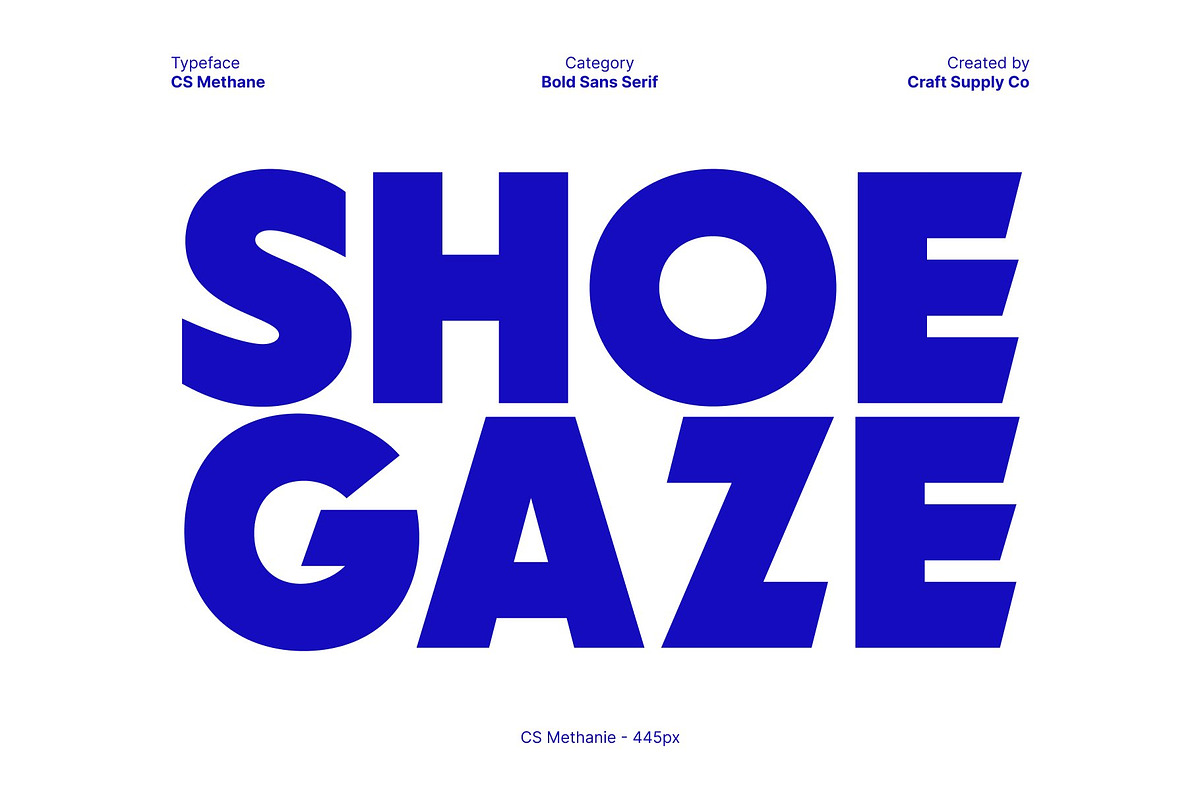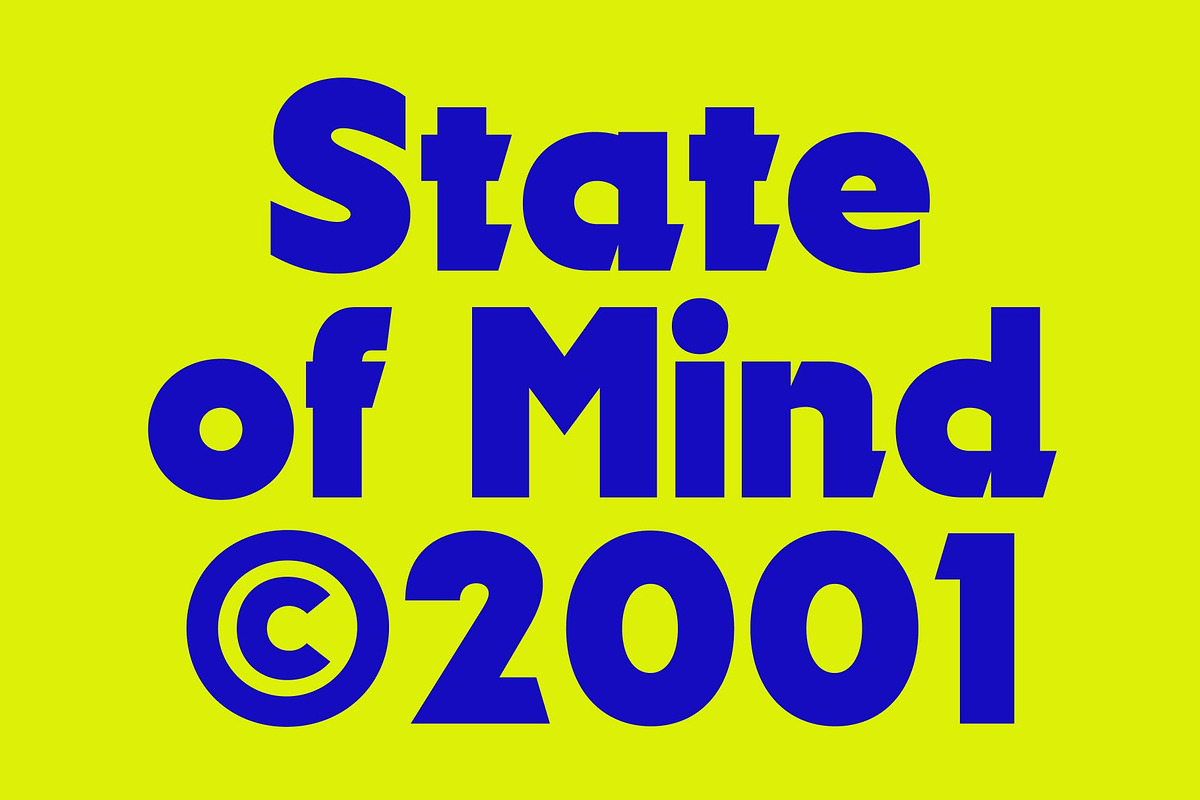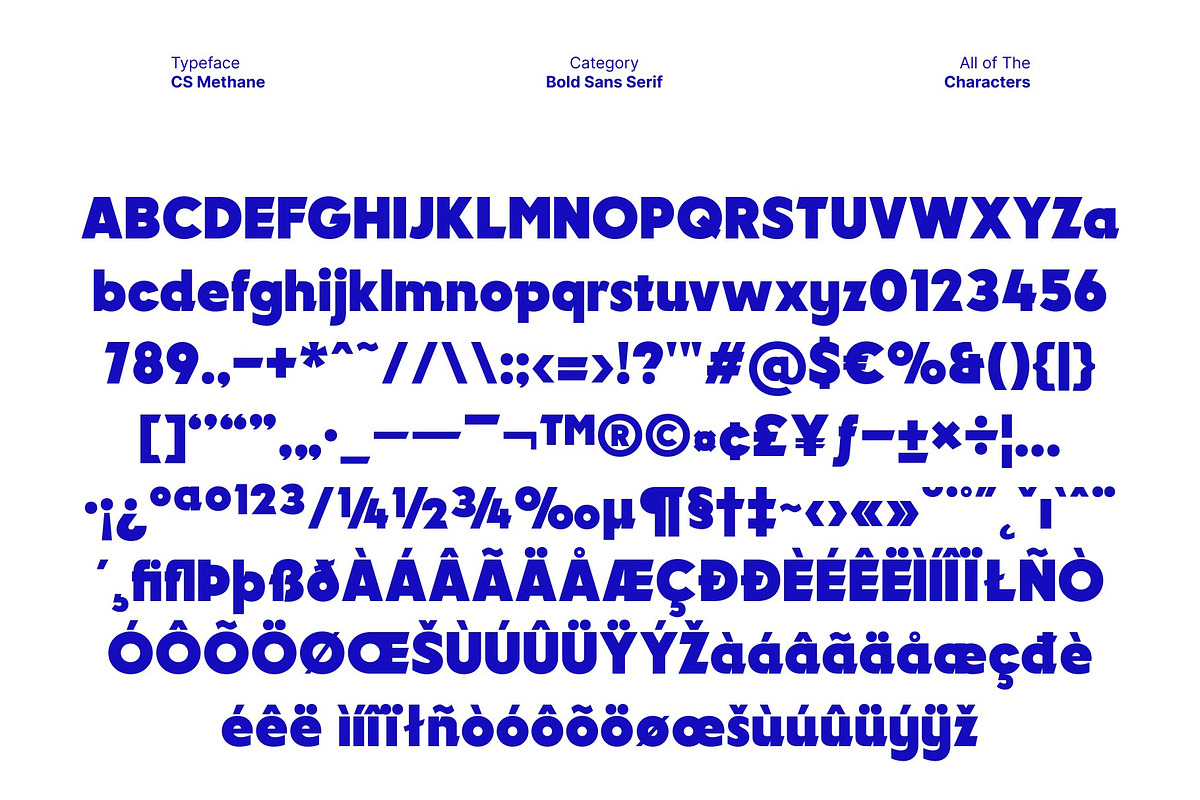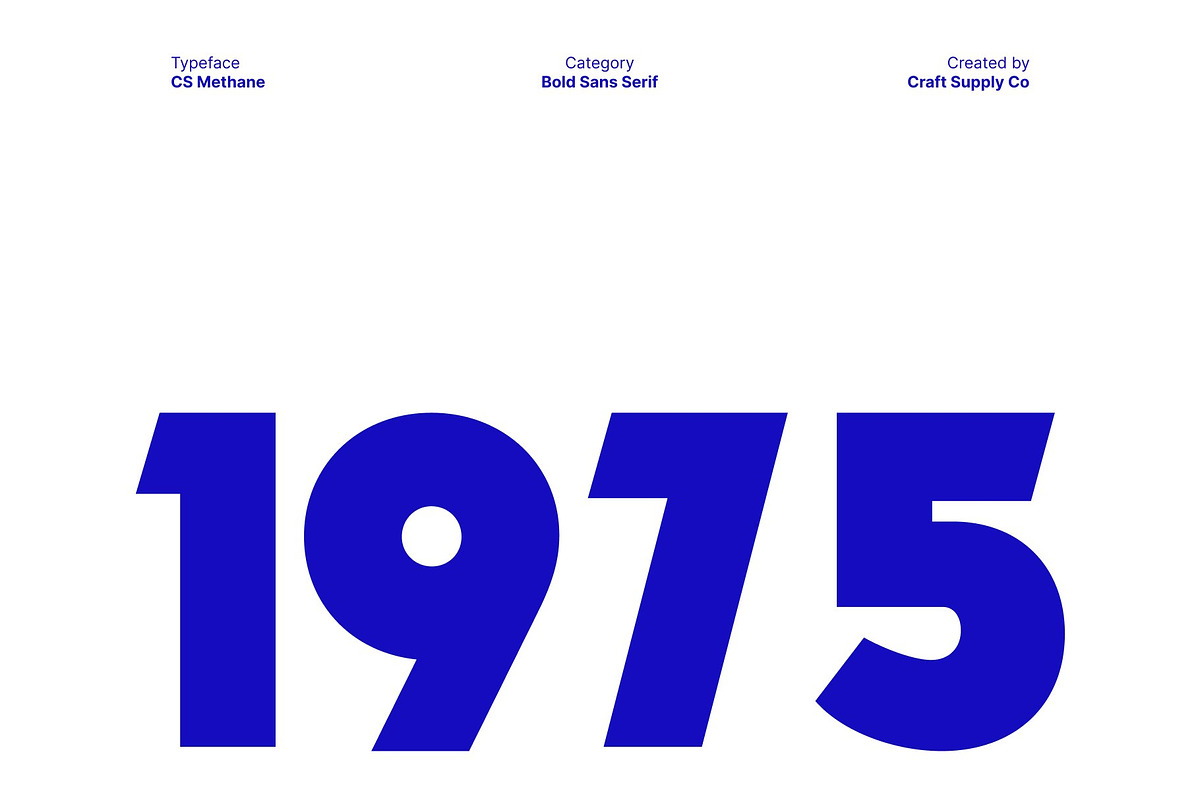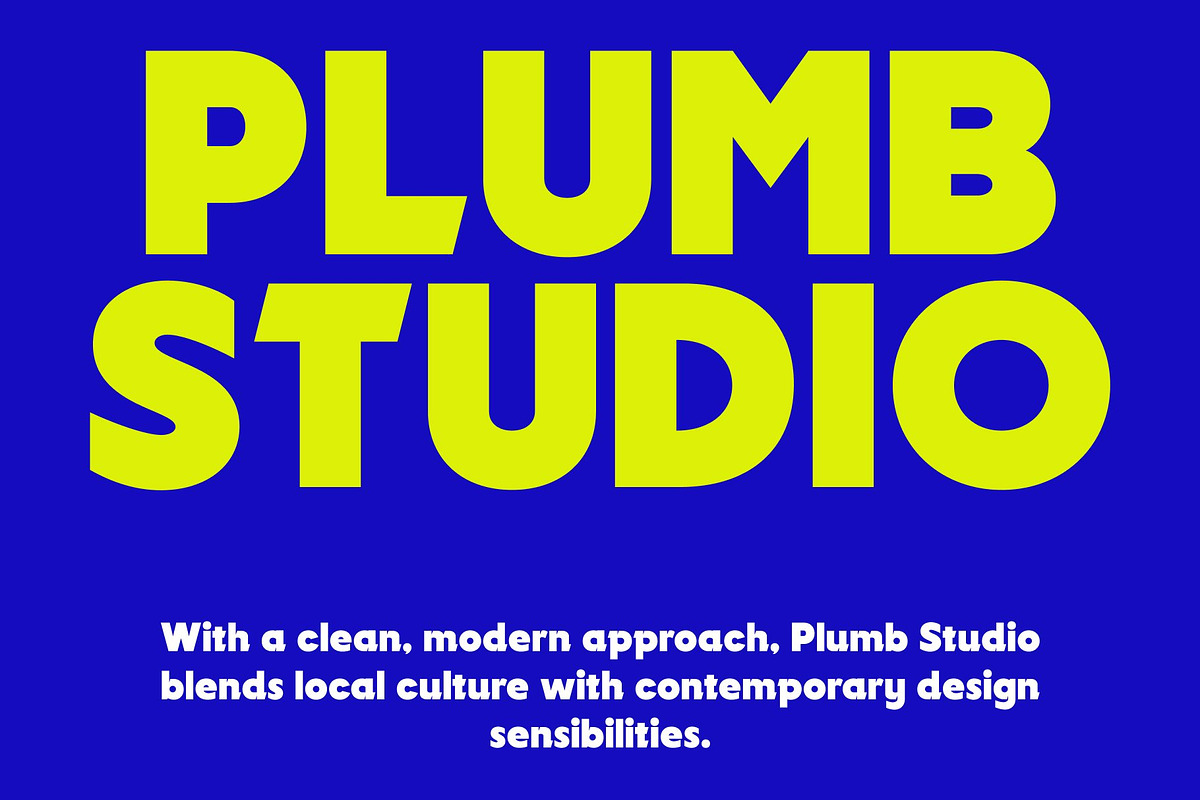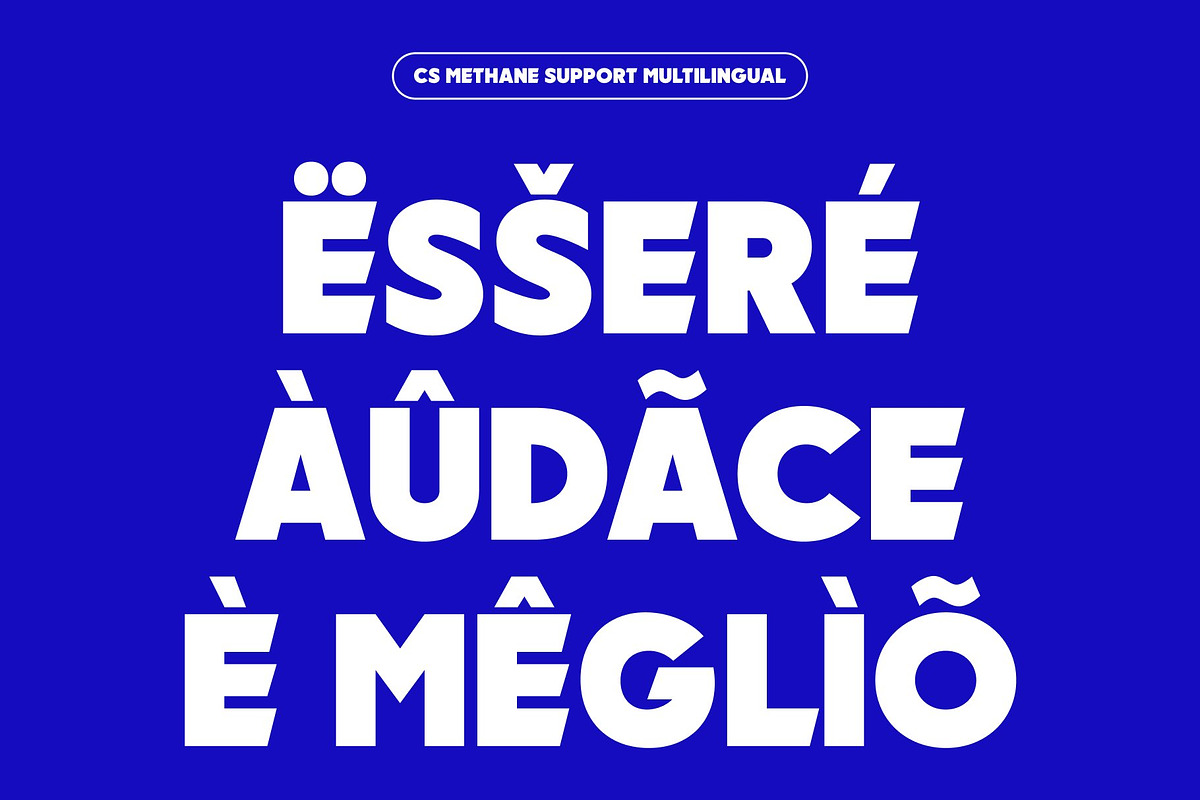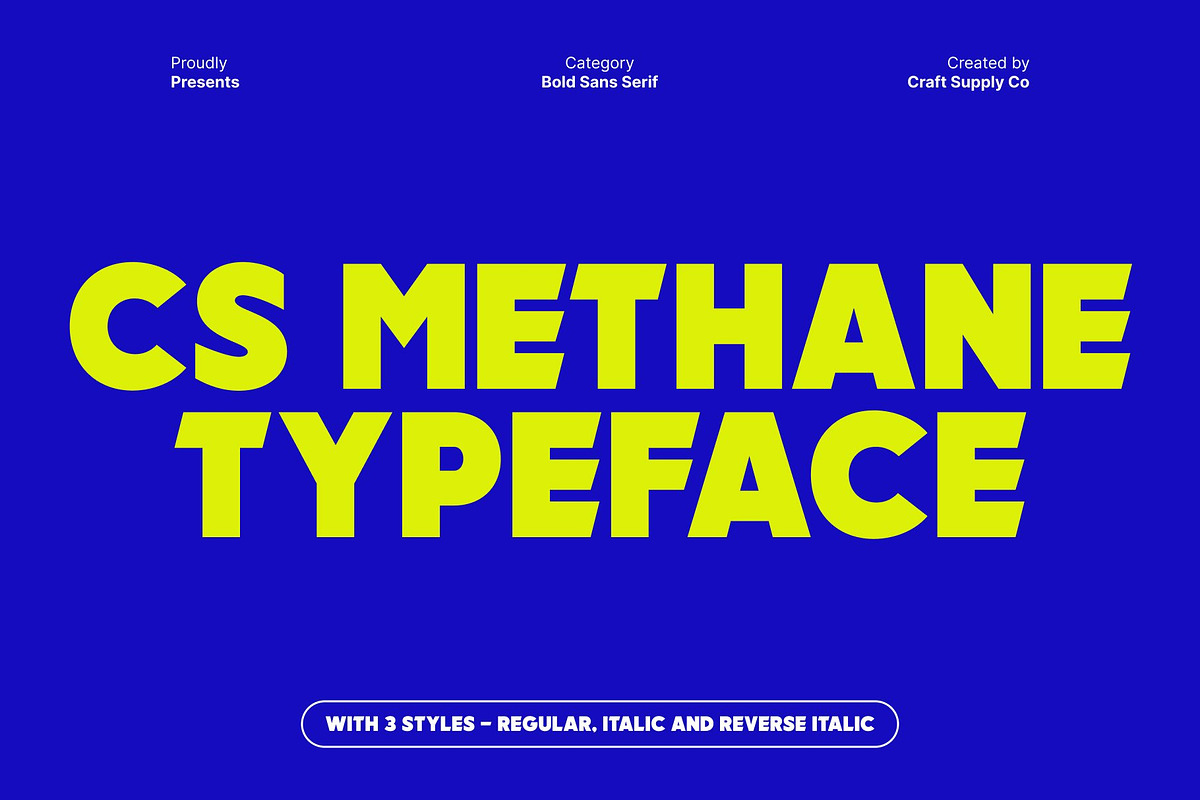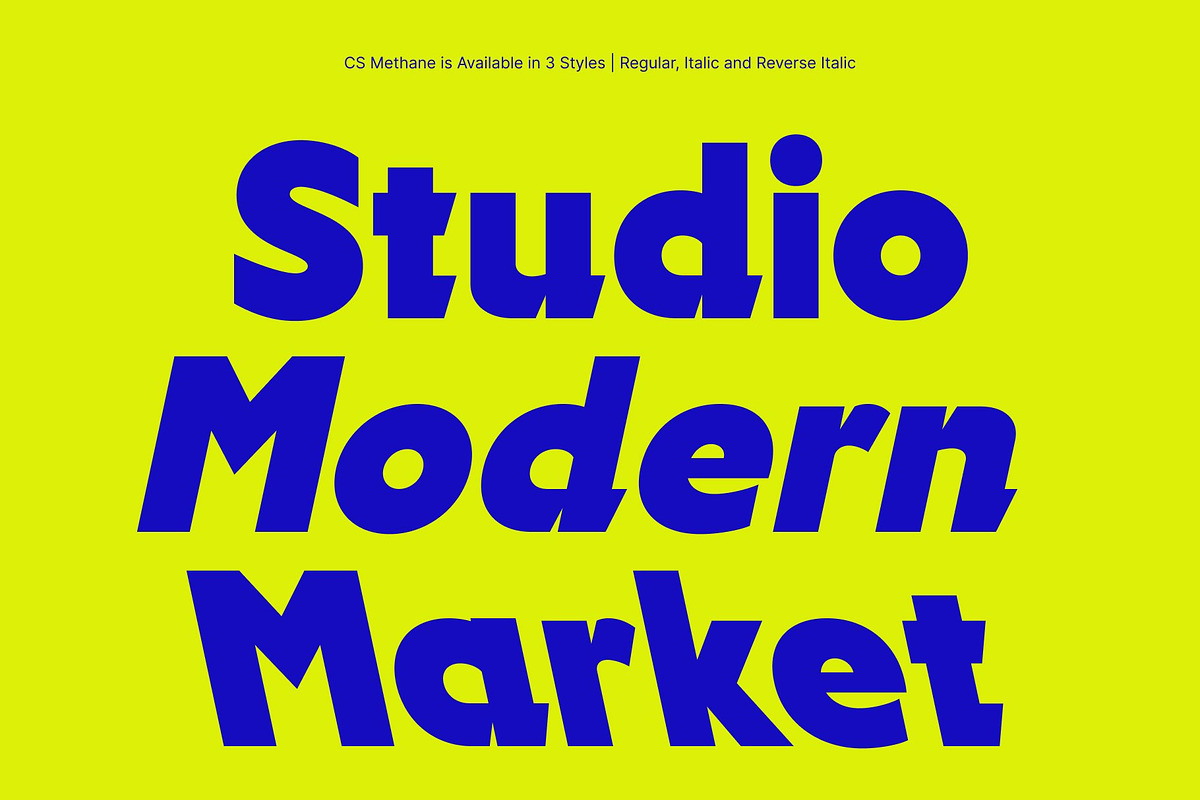
CS Methane – Bold Sans Serif
CS Methane – Bold Sans Serif Font with Geometric Power
A Modern Display Font Built for Strong Visual Impact This is a bold sans serif display font crafted to deliver maximum attention and clarity. With its striking modern shapes and confident structure, this typeface instantly stands out in any composition. Each letter is designed with purpose thick, expressive, and visually dominant making it the perfect choice for designers who want to communicate strength.
Geometric Forms for a Clean, Digital Style At the core of this font lies a robust geometric foundation. Sharp angles, smooth curves, and balanced construction come together to create a clean and digital vibe look. This geometric build gives the font a polished, technical feel, ideal for projects that demand both precision and personality.
Perfect for Headlines, Branding, and Digital Presence Designed to excel in high-impact applications, this font shines in headlines, branding systems, posters, and digital branding. Its thick and stylistic letterforms ensure visibility even at a distance, making it a strong asset for advertisements, social media graphics, website headers, and product showcases.
Expressive, Versatile, and Ready for Creative Use Despite its bold presence, this font remains highly adaptable. Its clean construction makes it easy to pair with minimalist layouts, while its expressive weight complements energetic and experimental designs. Whether you’re working on a modern tech project, a creative poster, or a bold brand identity.